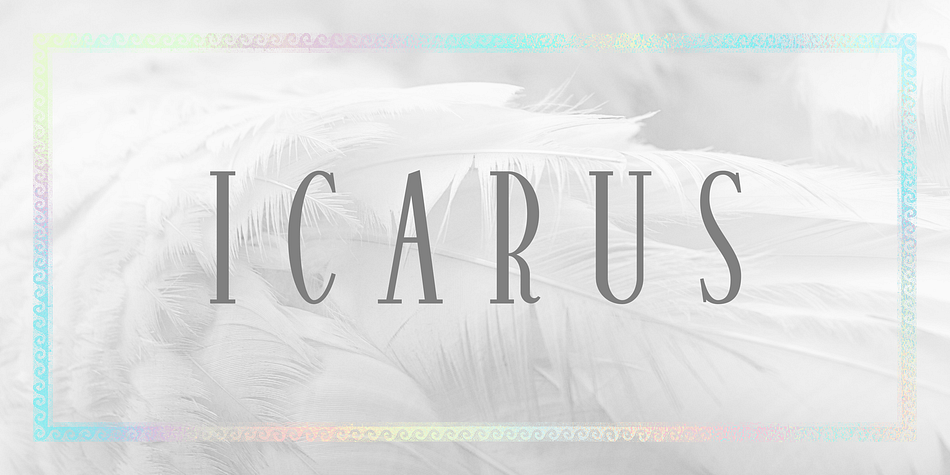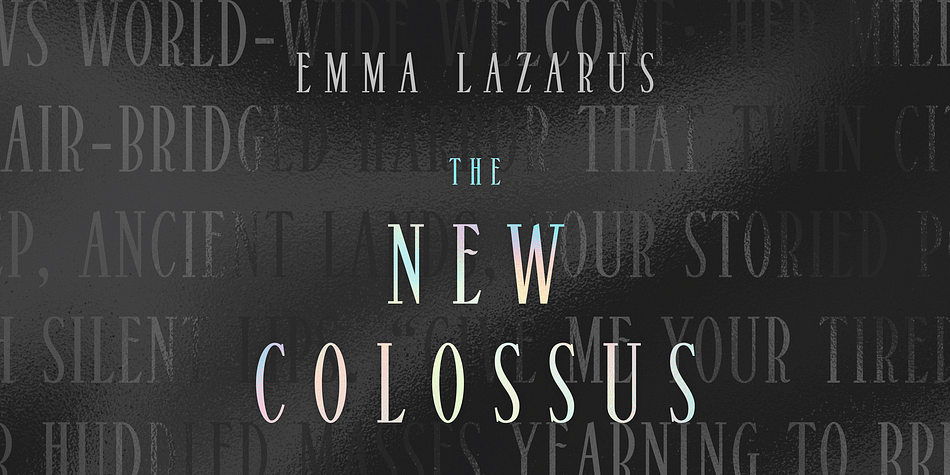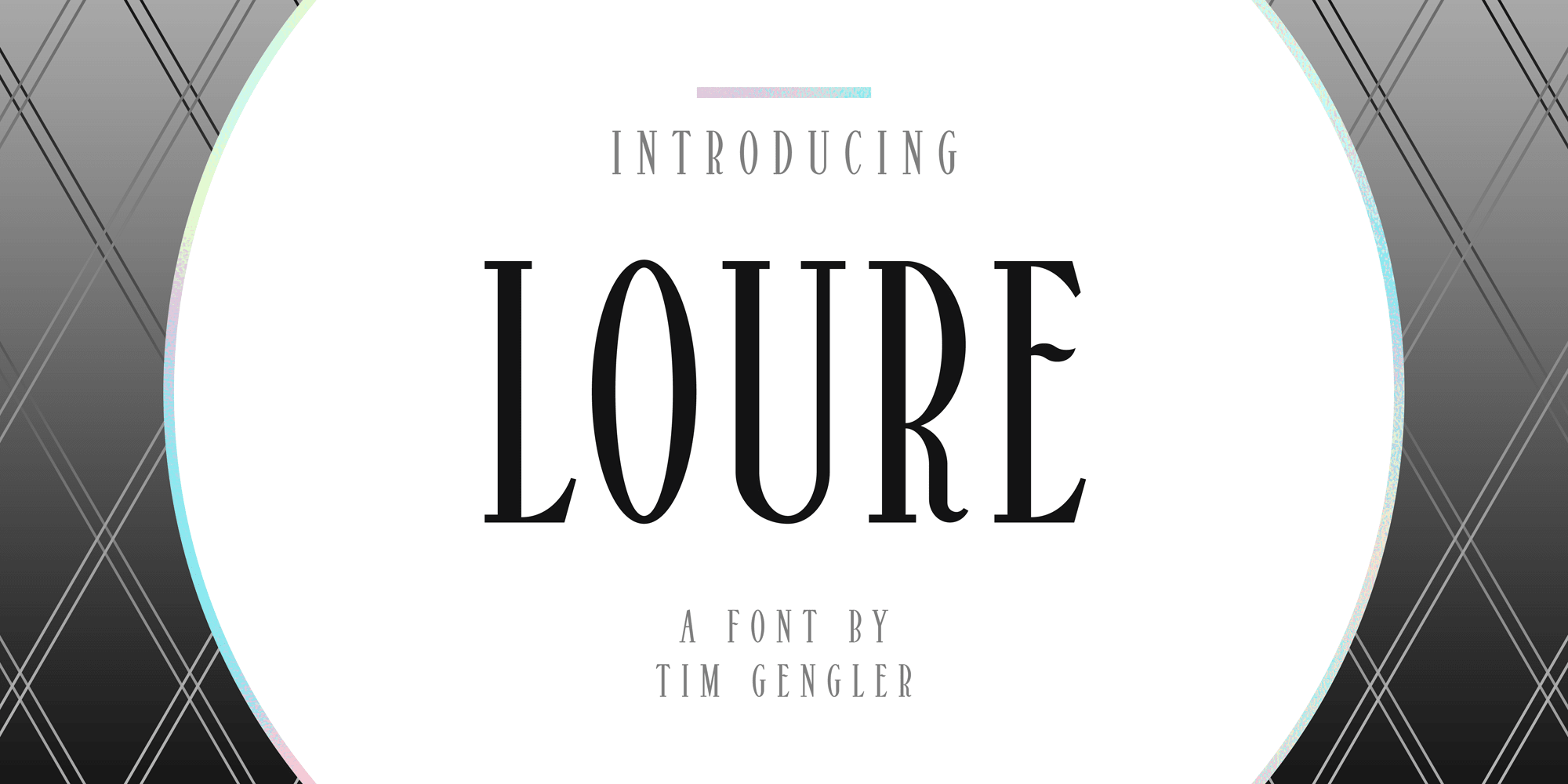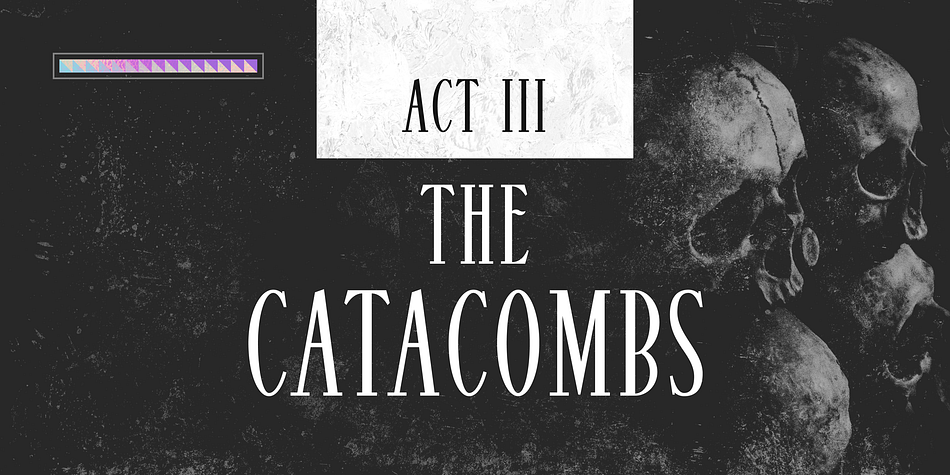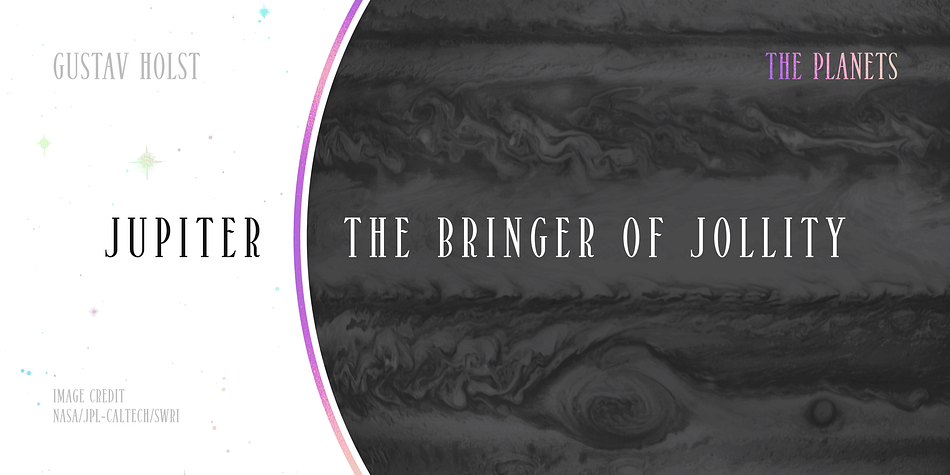
Loure
Designed by Tim Gengler, Loure is an art deco and display serif font family. This typeface has four styles and was published by Bunny Dojo.
Formal yet light-hearted, Loure is an ideal font for the best of times. Modest Art Deco influences imbue a century of history behind Loure’s fresh 2022 gaze, while a few unexpected swoops deliver intrigue alongside clean legibility.